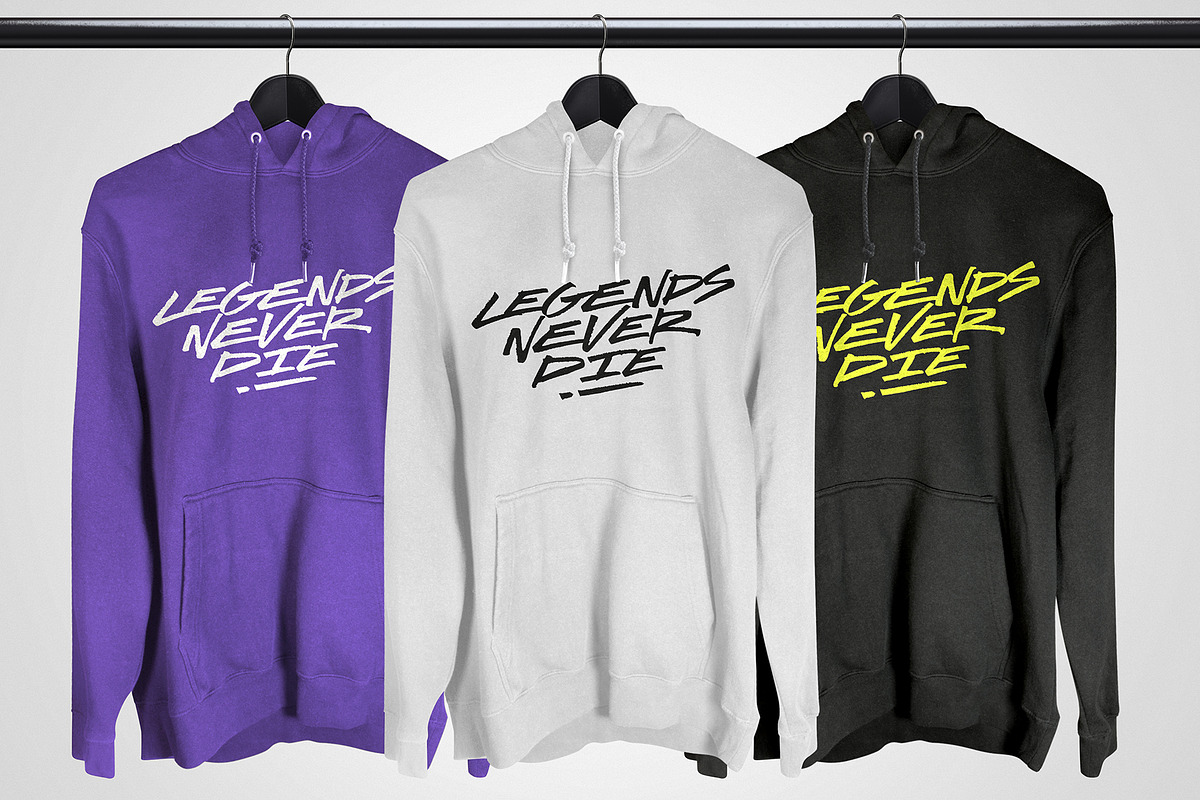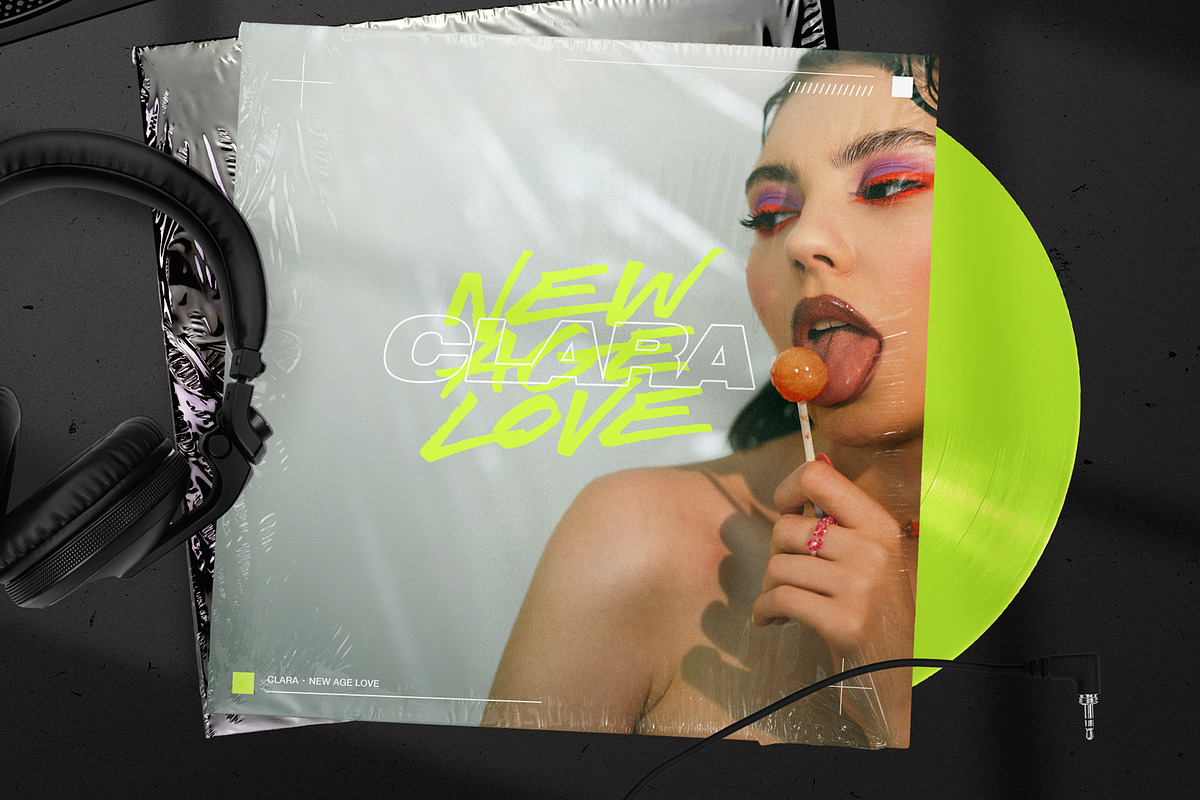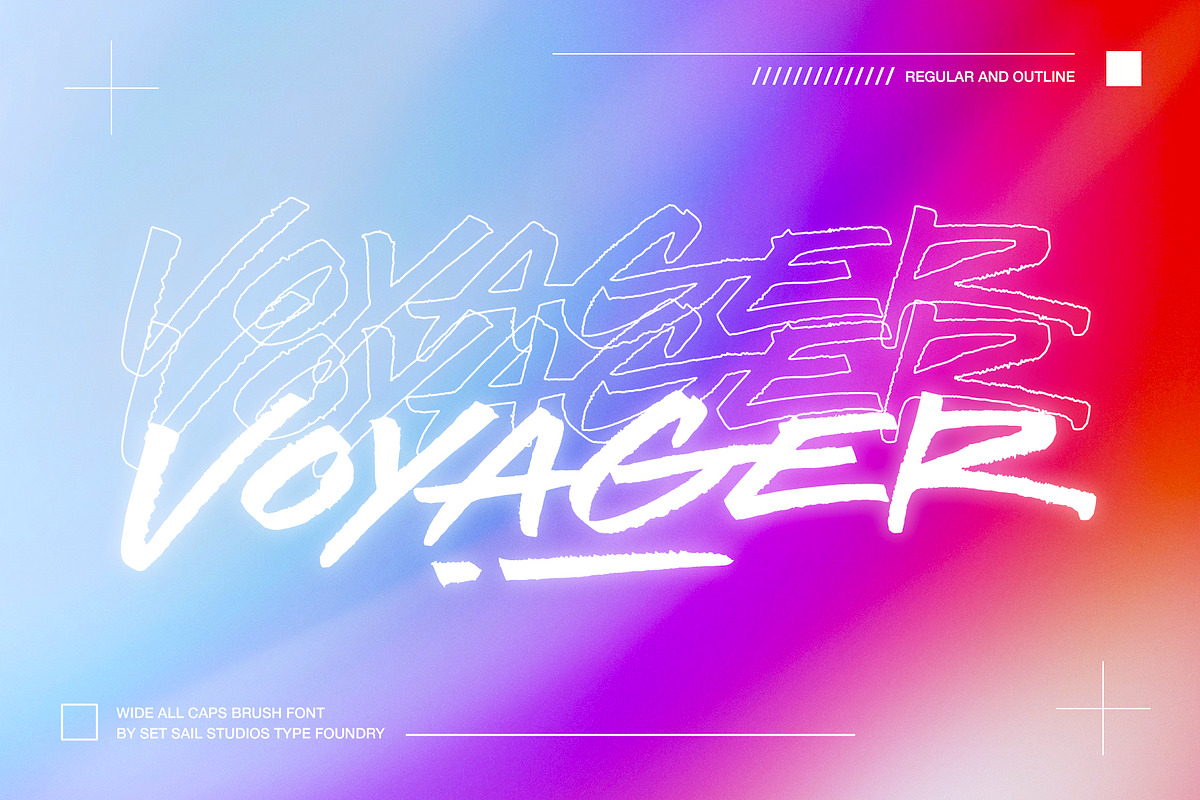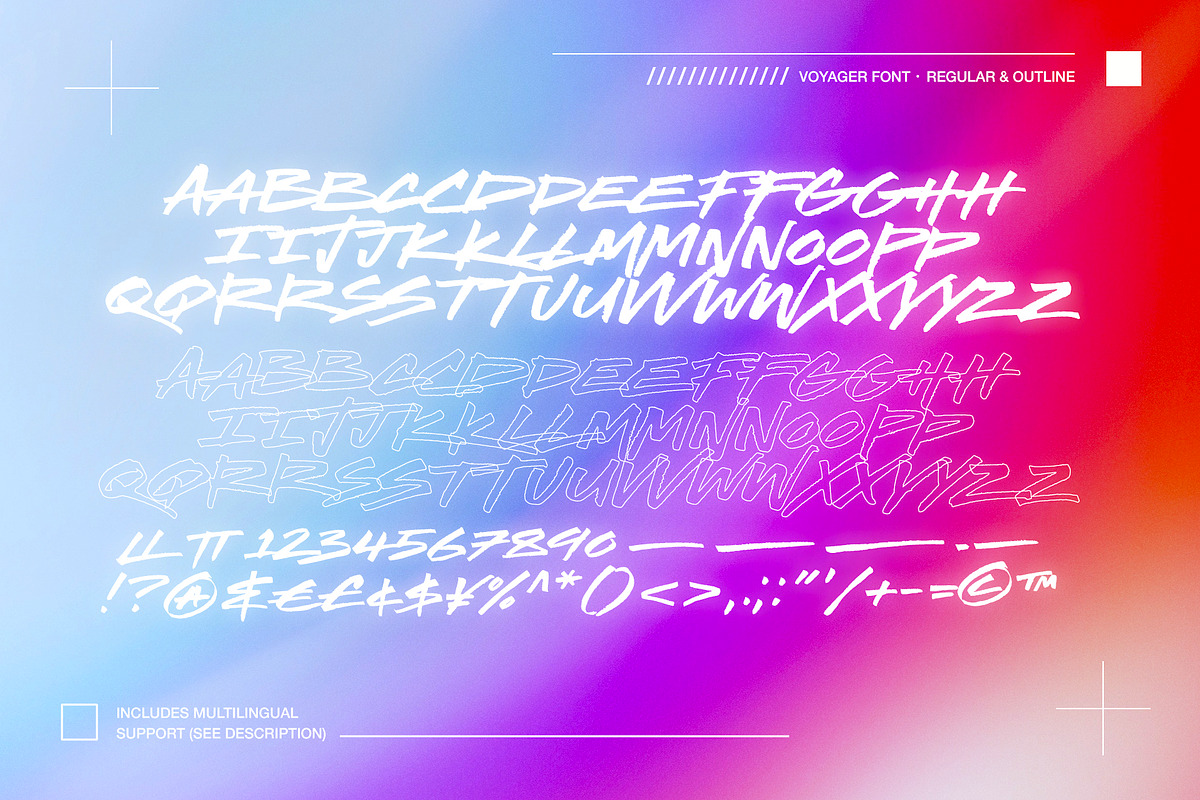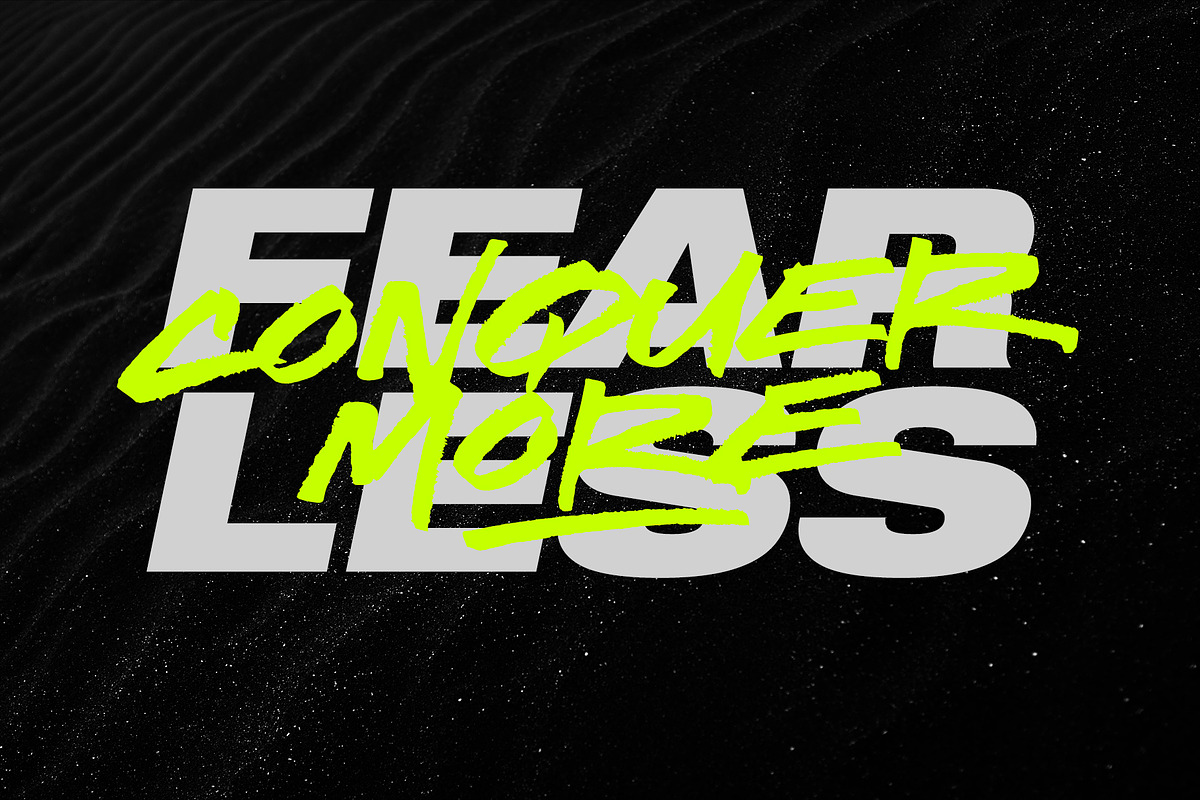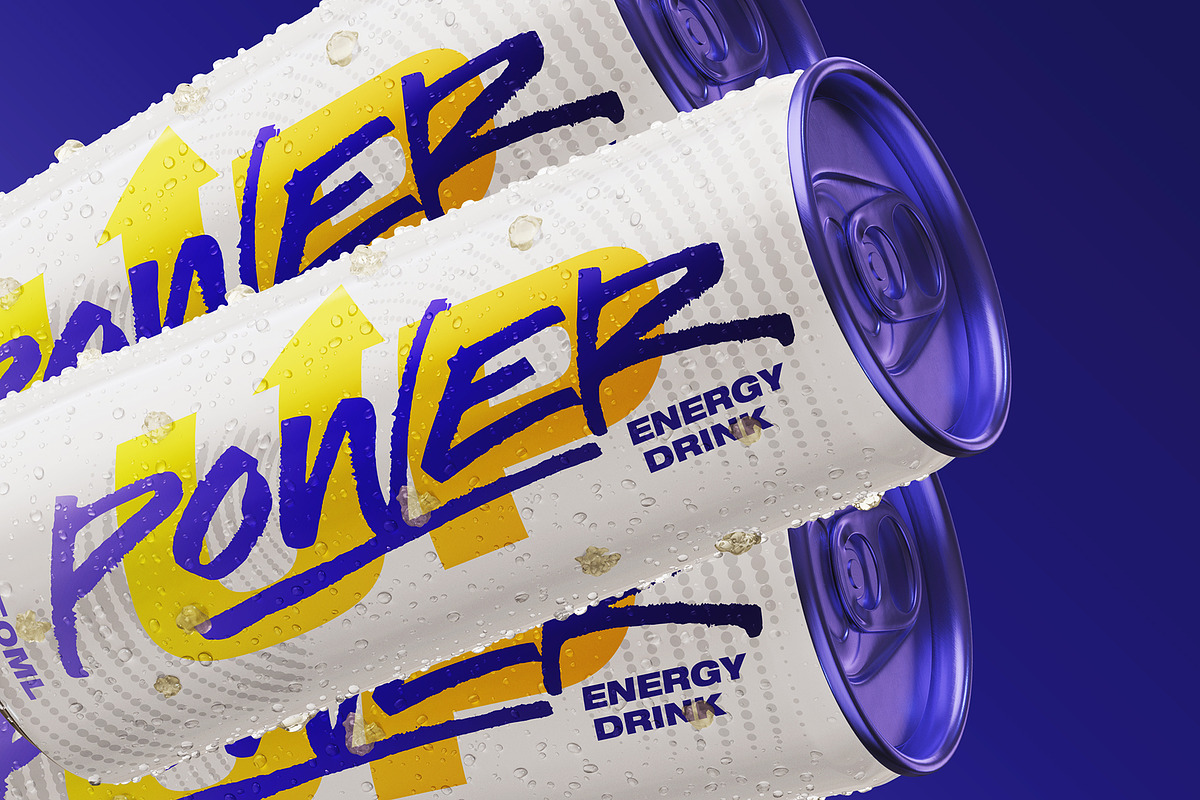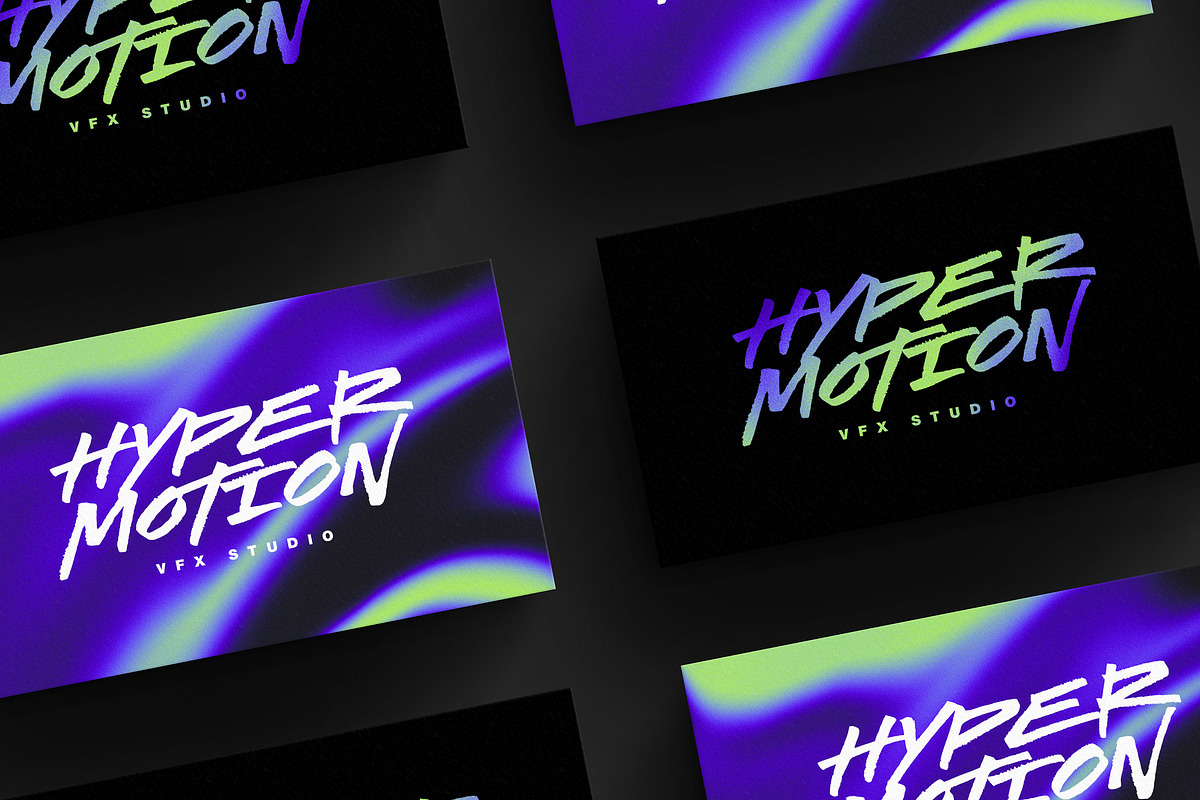
Voyager Brush Font
Make your mark with VOYAGER—a wild & wide all-caps brush font with energetic strokes and a gritty texture. It's guaranteed to leave a lasting impression on any design project in need an injection of motion and vigour. VOYAGER Includes 2 sets of capital letters (simply switch between upper and lowercase sets), available in 2 versions - Regular and Outlined.
1. VOYAGER Regular • A high energy, hand crafted brush font with high energy and heavy textures. Switch between upper and lowercase to access the 2 sets of capital letters. Contains a full set of numerals and punctuation.
2. VOYAGER Outline • An outlined version of VOYAGER for adding depth to your lettering.
Language Support • English, French, Italian, Spanish, Portuguese, German, Swedish, Norwegian, Danish, Dutch, Finnish, Indonesian, Malay, Hungarian, Polish, Croatian, Turkish, Romanian, Czech, Latvian, Lithuanian, Slovak, Slovenian.